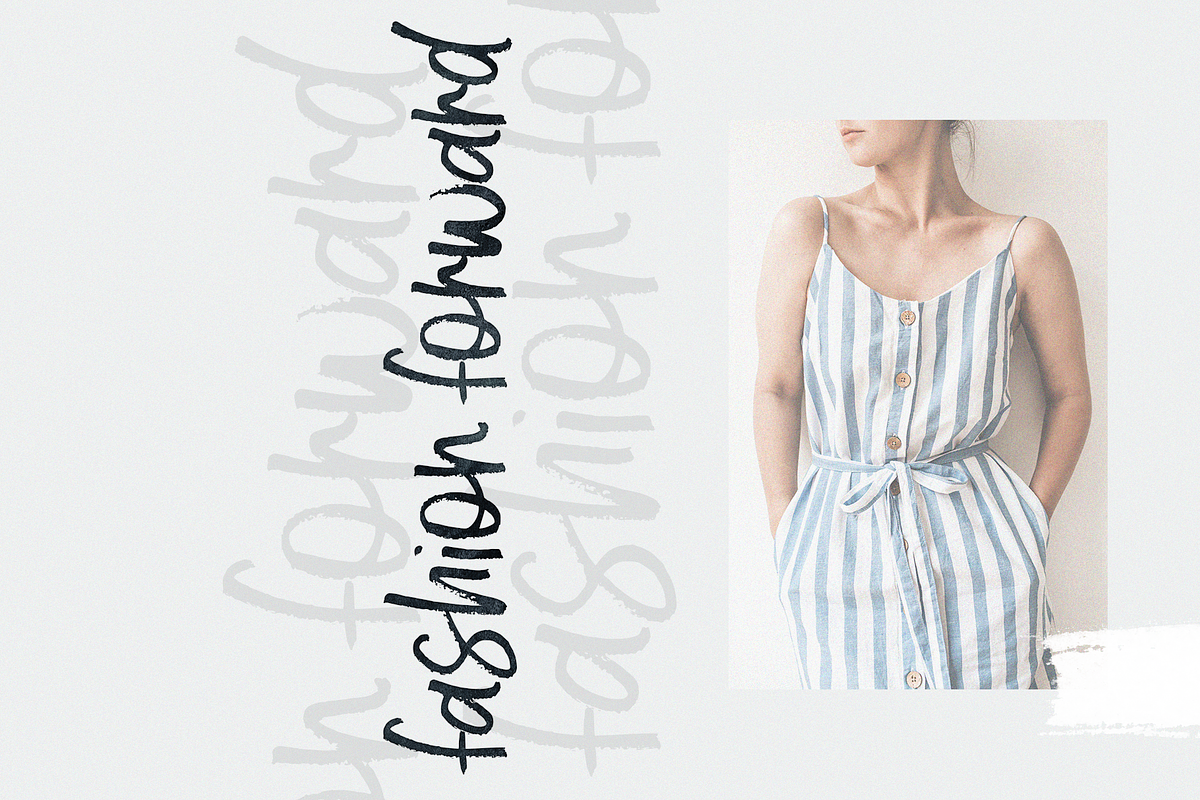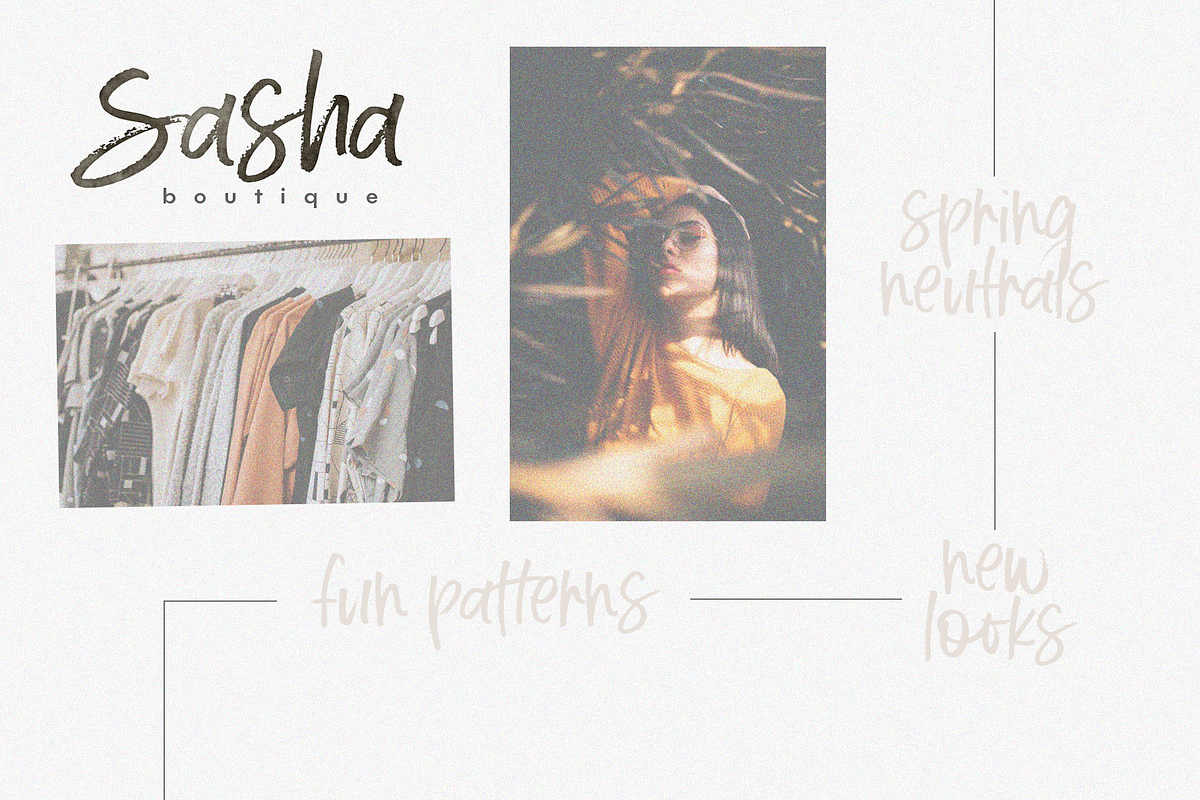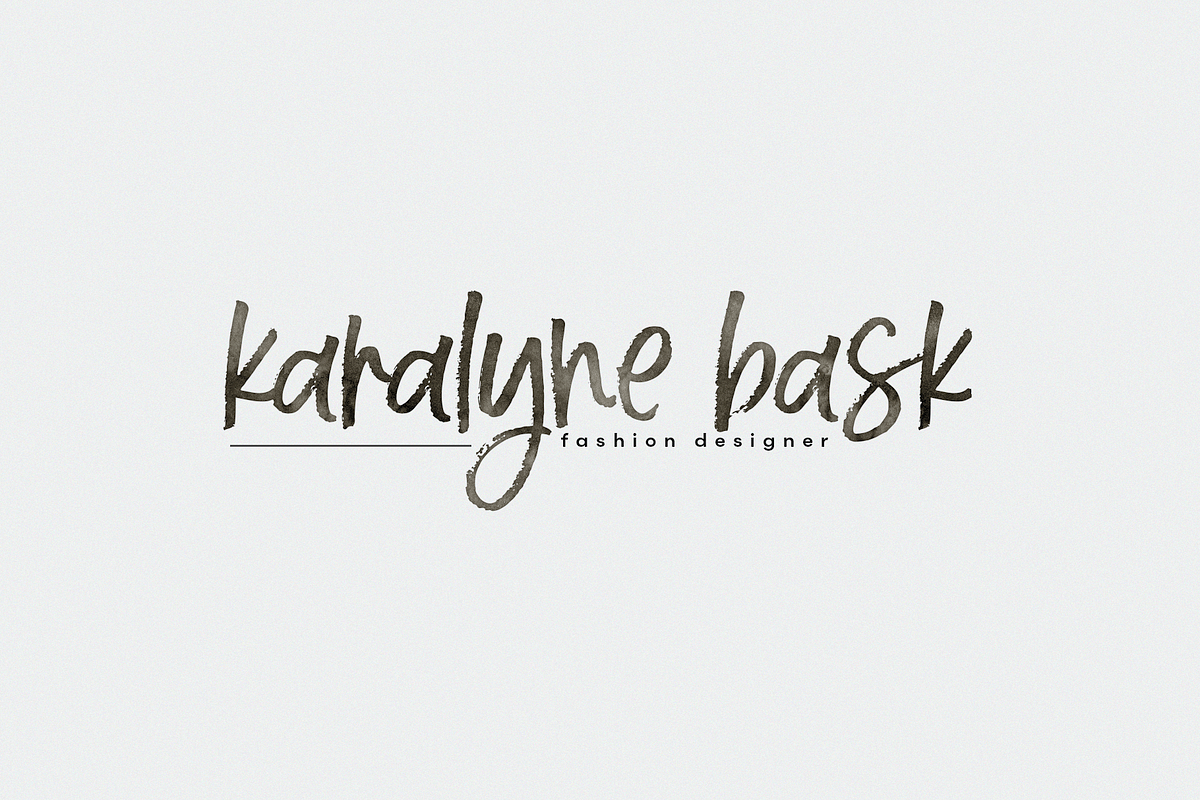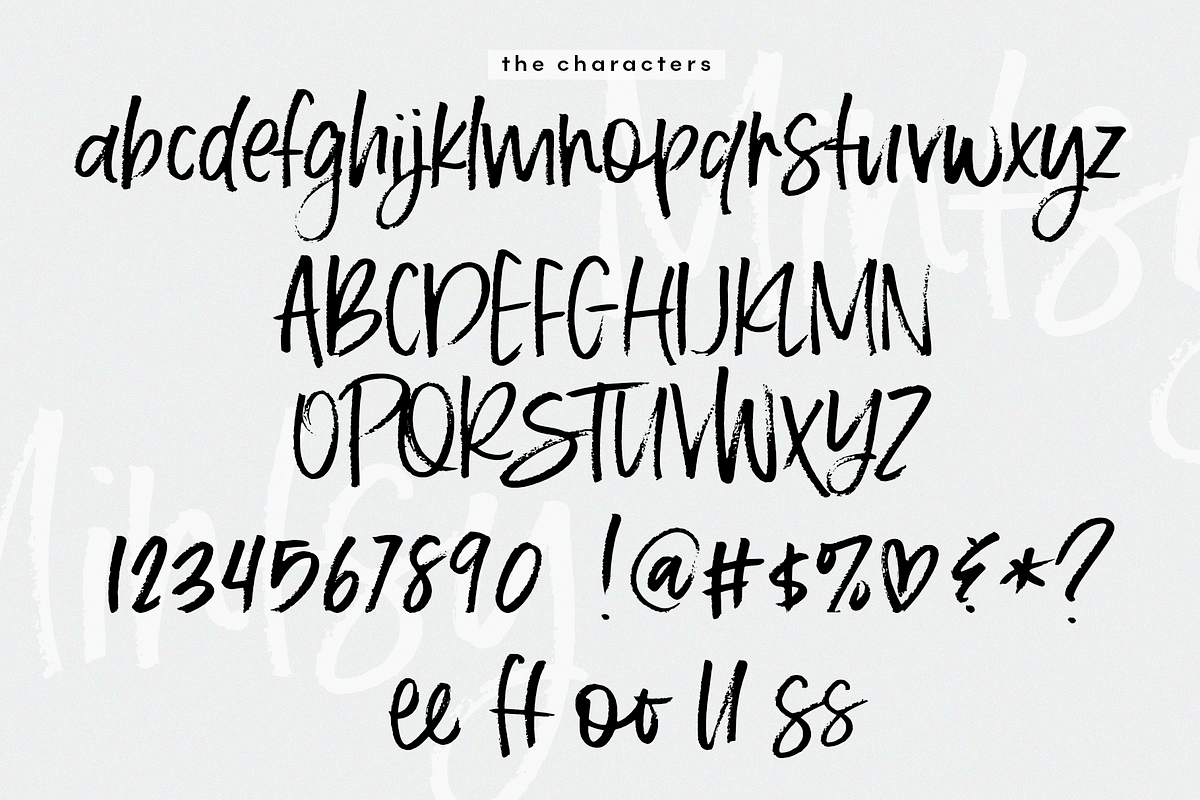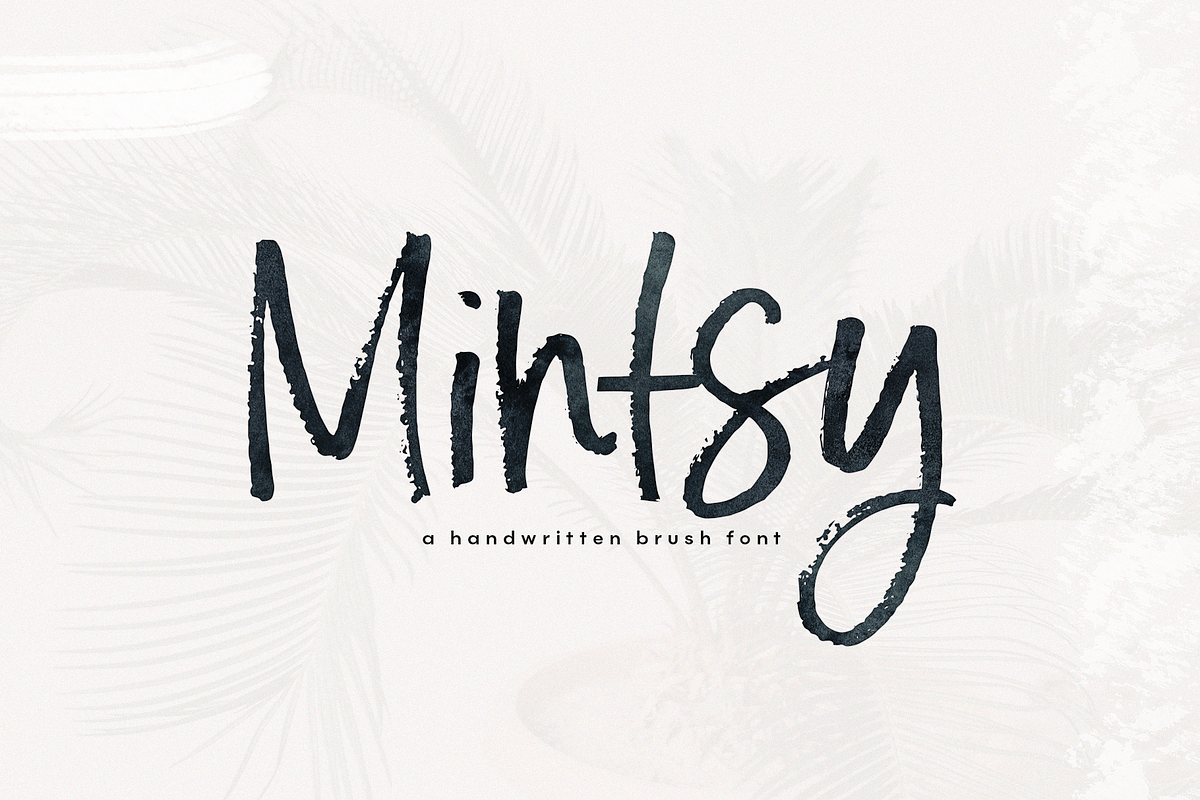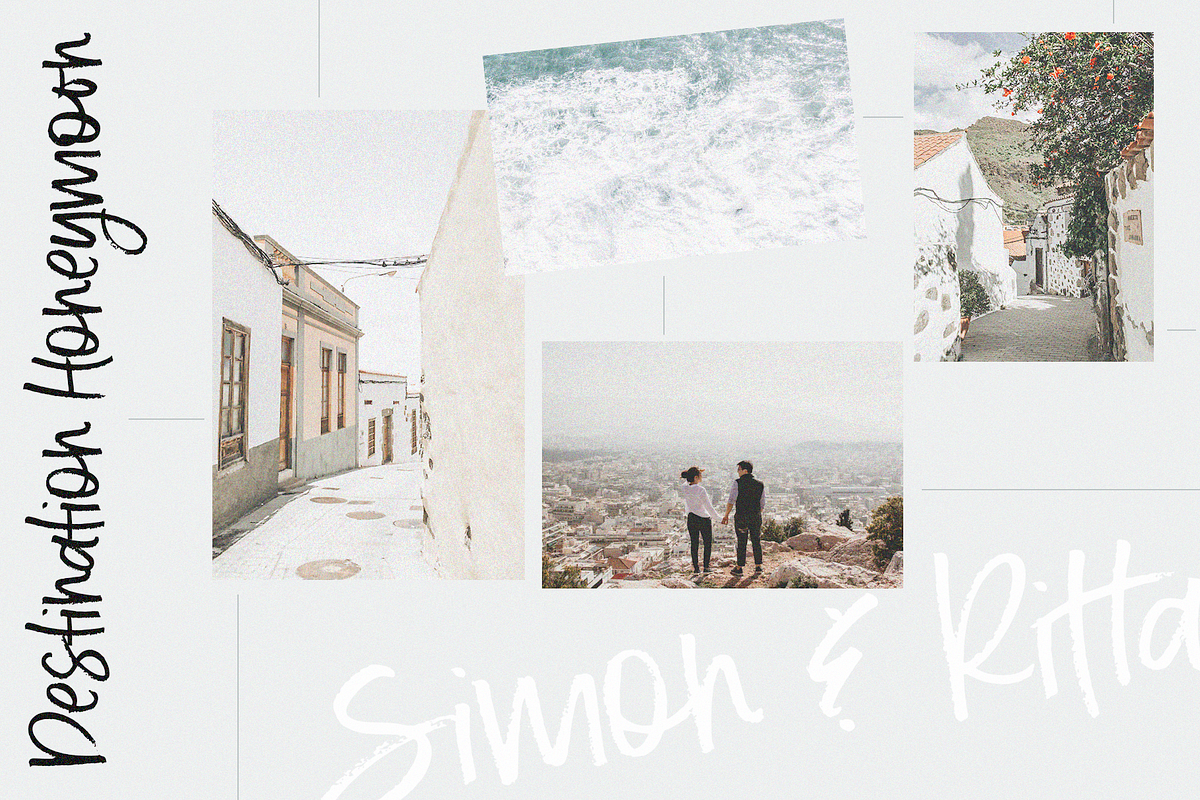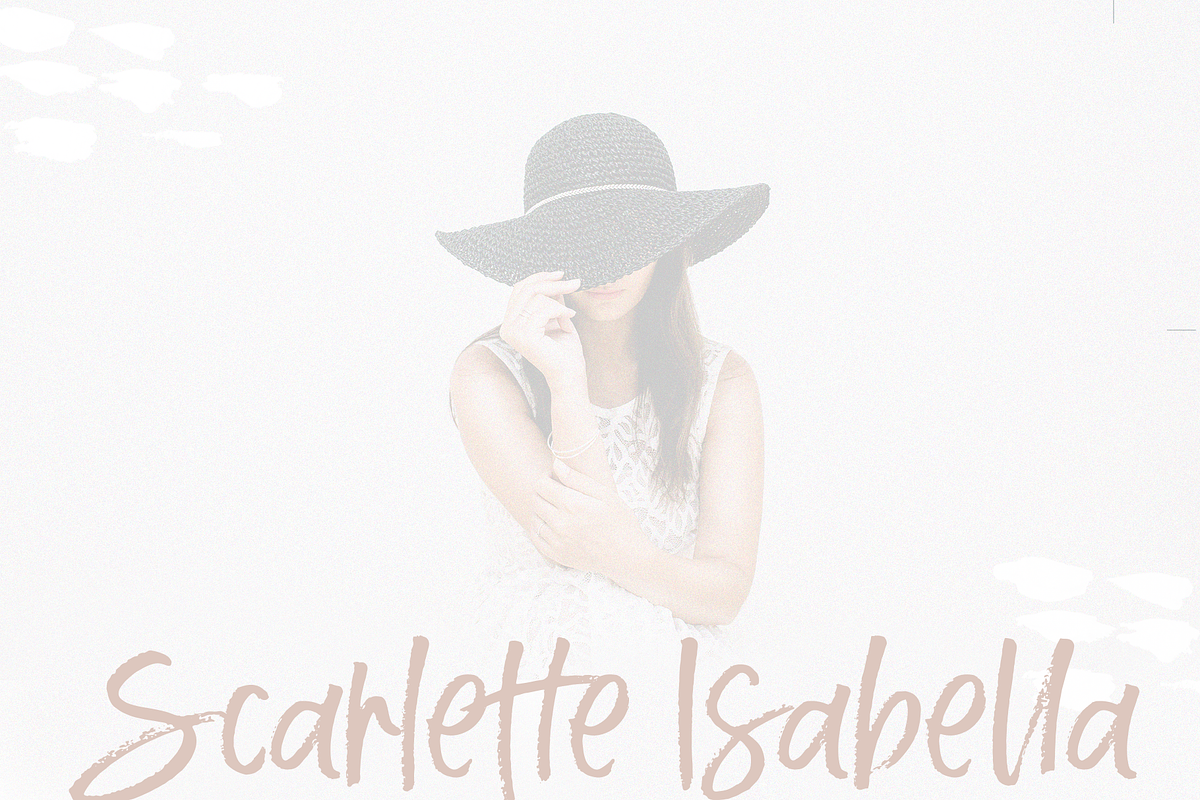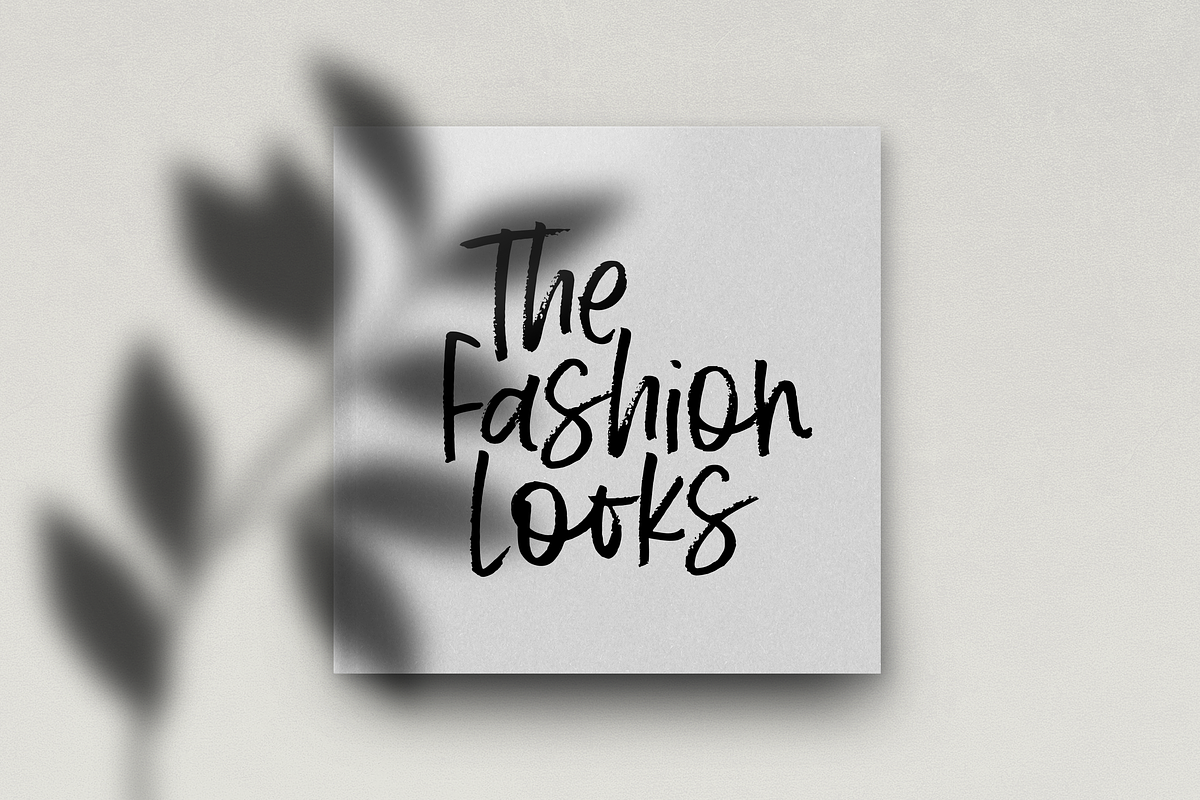
Mintsy - Handwritten Brush Font
Mintsy is a fun & airy font written in brush lettering.
This font is perfect for modern projects, headings, blogs, logos, brandings, invitations and more!